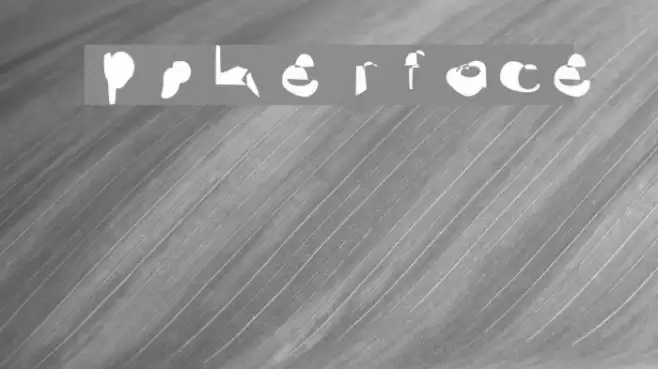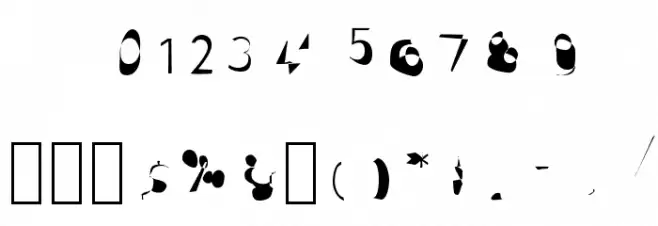
pokerface Font
pokerface Description
This font is a highly creative and abstract design, characterized by its fragmented and distorted letterforms. Each character appears as if it has been cut and rearranged, giving it a unique, chaotic appearance. The uppercase and lowercase letters maintain a consistent style, with sharp angles and irregular shapes that create a sense of movement and unpredictability. The numbers and special characters follow the same design principles, ensuring a cohesive look throughout the font. This font's distinct style makes it stand out, offering a bold statement in any design.
A fragmented and abstract font with chaotic, sharp letterforms from Uncategorized fonts.
- Proposed Projects: Ideal for avant-garde posters, album covers, and experimental graphic design projects.